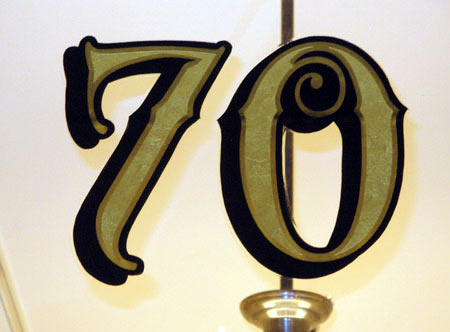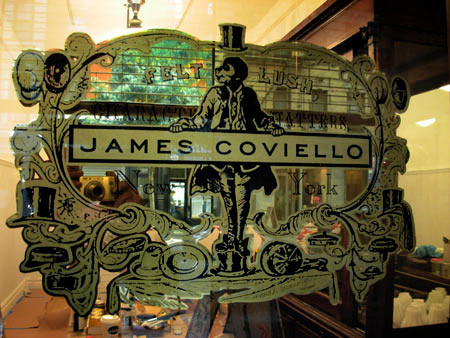
I wanted to share a couple of recent jobs I completed with you guys.
Nice work Bob!
Thanks Jerry!
The 70 is on the transom & about 10" high, the logo is on the shop entrance door & it's about 21" wide.
As the french say, Je l'aime!
This must be the door for the new store on Orchard street.
Is this both matte and bright gold?
James-Coviello, English inspired fashions.
Yeeouch Robert!
Hey Bob, what was the process on the door logo?
Correct Robare!
Thanks for noticing. His shop is on the lower east side nyc, pretty happening spot.
James is a cool dude and has quite a track record in the fashion scene from what I have heard.
I'll be doing 3 or 4 other shops on Orchard St. within the next two weeks.
I used 23k on the job, used the matte around the black graphics to make them pop.
The 70 is 23k burnished outline w/ 23k matte center w/ black painted outline & shadow.
(Bummer....... she wasn't on location when I was doing the job!)
Jerry
Insane logo huh? (challenge!)
The logo was supplied to me via small file size JPEG
There was no vector art to make a mask. (logo artist disapeared???)
1- opened the logo JPEG in photoshop & reversed the art & played with the black until it was somewhat solid.
2- made a digital print on paper (enlarged it in the rip to size) I used a versacam for the print
3- placed paper w/image on the outside of the glass and started painting the black image.(talk about a workout)
4-Using rolco quick size I outlined & filled all of the black areas that I wanted to be different.
5-after the size set up I water gilded the entire area w/ 23k manetti.
6-When I backed up, I outlined the entire logo slightly so there was a super thin burnished outline around the whole imge.
7- cleared the job with window spar (yikes! I hope it holds!)
During drying time, I did the 70 on the transom
Wow Bob, bit-O-work. It's good for ya though. Keeps you up on your skills.
Thanks & Good job!
Thanks Jerry
I always try to give it my all.
I forgot to mention that I also used an exacto to remove black paint in areas where it was too tight to get detail with a brush.
Great work Bob !!!
Must be nice to live somewhere where they appriciate gilded windows.
Thank you Roderick!
I'm thankful and grateful to live in an area where the business's have a taste for gold window lettering.
In manhattan, especially downtown every block is like a little neighborhood. All the business owners know each other and compare notes bigtime. Word travels fast!
When I work there, there are always a lot of spectators, passerbys and alot of questions about the work I'm doing. I try to make a point to talk to almost all of them and answer their questions the best I can.